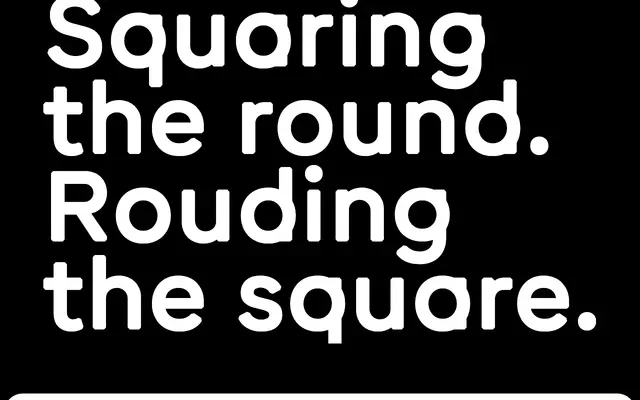
Round
A geometric sans by Yoann Minet built on the tension between circle and square, using 45° bevelled terminals that read as rounded at small sizes but reveal sharp angles under scrutiny.
Designed by Yoann Minet and released by Bureau Brut in 2021, the typeface's defining move is in letters like b, d, p and q, where vertical strokes intersect rounded bowls at precise right angles with bevelled corners rather than true curves. At distance or small sizes the bevels resolve optically into softness; close up the geometry asserts itself. The collection extends to Round Condensed and Round Ultra, giving 42 styles in total across the three subfamilies, suited to logotypes, brand identities and extended text.
A geometric sans distinguished by bevelled 45° stroke terminals on rounded letterforms, creating an optical illusion of roundness at small sizes while retaining angular geometry up close. The construction principle — squares and circles in deliberate tension — places it firmly in the geometric sans tradition.